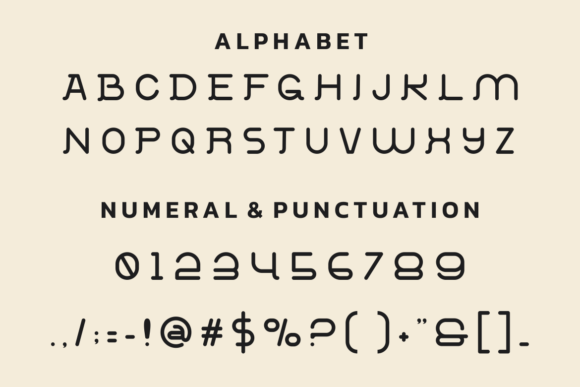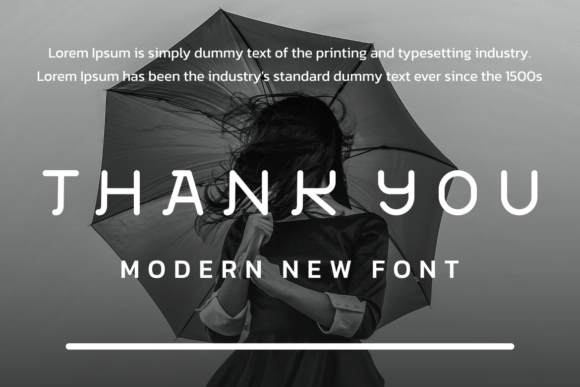
The Dazzler Font: Elevate Your Designs with Modern Flair
I’ll never forget the time I was working on a project for a client who wanted a modern, edgy look. I had spent hours browsing through font libraries, but nothing seemed quite right. That was when I stumbled upon the Dazzler font. Its sleek lines and contemporary style instantly caught my eye, and I knew I had found the perfect fit. In this article, I’ll share my experience with the Dazzler font, its features, and how to make the most of it in your designs.
An Honest Review of Dazzler Font
- ✨ Modern and sleek design: Dazzler’s clean lines and minimalist aesthetic make it perfect for modern designs.
- ✅ High versatility: This font can be used for a wide range of projects, from branding and advertising to packaging and digital media.
- 💡 Incredible legibility: Dazzler’s clear and concise lettering ensures that your message is conveyed effectively, even at smaller font sizes.
While Dazzler is an excellent font, there are a few things to keep in mind:
- 🤔 Limited suitability for body text: Due to its modern and sleek design, Dazzler may not be the best choice for lengthy body text. It’s better suited for headings, titles, and short paragraphs.
- ⚠️ Some glyphs may require manual adjustment: While Dazzler has an extensive range of glyphs, some may require manual adjustment to fit perfectly with the rest of the text.
- Experiment with OpenType features, such as stylistic alternates, to add visual interest to your text.
The Backstory of Dazzler Font
Dazzler was designed by a team of creatives who wanted to create a font that would shine in any design project. Inspired by modern architecture and sleek lines, they crafted a font that is both versatile and eye-catching. While the design team behind Dazzler remains anonymous, their work has certainly made an impact on the design community.
| What type of projects is Dazzler best suited for? | Dazzler is perfect for modern designs, such as branding, advertising, packaging, and digital media. |
| Can I use Dazzler for body text? | While Dazzler is legible, it’s better suited for headings, titles, and short paragraphs. For lengthy body text, consider a more traditional font. |
| Does Dazzler support OpenType features? | Yes, Dazzler supports OpenType features, including stylistic alternates, glyphs, and ligatures. |